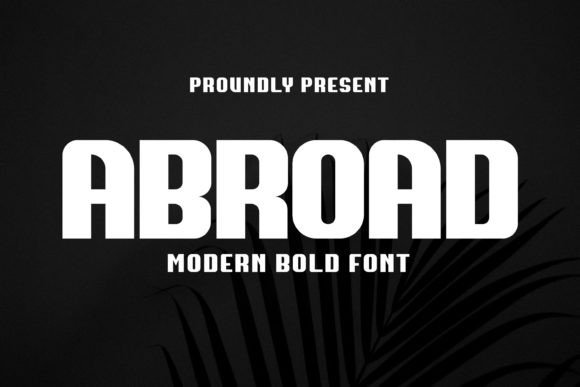
Introducing “Abroad Bold Font” – Your Gateway to Distinctive Typography!
In the realm of design, typography plays a pivotal role in conveying messages, evoking emotions, and capturing attention. For designers and creatives seeking to make a lasting impression, the choice of font is paramount. This is where Abroad Bold Font comes into play – a dynamic typeface meticulously crafted to elevate your designs to unprecedented heights. Whether you’re a seasoned designer or a budding creative, Abroad Bold Font is your ultimate tool for making a bold statement that demands attention.
The Essence of Abroad Bold Font
Abroad Bold Font is not just another addition to the vast universe of typefaces; it is a game-changer. Its design is rooted in the principles of clarity, versatility, and impact. Each letter is carefully crafted to exude a sense of confidence and professionalism, making it perfect for a wide range of applications – from branding and advertising to web design and personal projects.
Unleashing Creative Potential
What sets Abroad Bold Font apart is its unique blend of modernity and timelessness. It’s a font that feels at home in both digital and print media, adapting seamlessly to various contexts and layouts. This adaptability is a boon for designers who work across multiple platforms and mediums, as it allows for a consistent visual identity that’s easily recognizable.
Key Features of Abroad Bold Font
- Distinctive Character: Abroad Bold Font boasts a distinctive character that sets it apart from more generic typefaces. Its bold strokes and elegant curves make it both eye-catching and aesthetically pleasing.
- Versatility: Whether you’re designing a logo, a website, a brochure, or a social media post, Abroad Bold Font can be your go-to choice. Its versatility means it can be used in various contexts without losing its impact.
- Legibility: Despite its boldness, Abroad Bold Font maintains high legibility, ensuring that your message is conveyed clearly and effectively. This is particularly important in digital media, where readability can be a challenge.
- Easy to Pair: For designers who like to mix and match fonts, Abroad Bold Font is easy to pair with other typefaces. It works well with both serif and sans-serif fonts, offering flexibility in design.
Who Can Benefit from Abroad Bold Font?
Abroad Bold Font is a valuable asset for a wide range of professionals and creatives, including:
- Graphic Designers: Looking for a bold and impactful font to make their designs stand out.
- Web Designers: Needing a font that’s not only visually appealing but also legible on various devices.
- Marketers and Brand Strategists: Aiming to create a strong and memorable brand identity.
- Content Creators: Seeking to enhance the visual appeal of their content across different platforms.
- Crafters and DIY Enthusiasts: Who want to add a professional touch to their handmade products or personal projects.
How to Get the Most Out of Abroad Bold Font
To truly leverage the potential of Abroad Bold Font, consider the following tips:
- Experiment with Sizes: While the bold nature of the font makes it impactful, playing with different sizes can add depth and hierarchy to your design.
- Play with Colors: Don’t be afraid to experiment with different colors. The right color can enhance the font’s personality and suit the mood of your project.
- Mix and Match: Try pairing Abroad Bold Font with other fonts to create interesting contrasts and dynamic layouts.
- Consider Context: Always consider the context in which your design will be viewed. This will help you make informed decisions about font size, color, and placement.
| Author | ajiwaluyo88 |
Abroad Bold Font is more than just a typeface; it’s a design statement. It’s a tool that empowers designers and creatives to push the boundaries of typography and design. With its distinctive character, versatility, and emphasis on legibility, Abroad Bold Font is poised to become a favorite among those who see the power of typography in shaping perceptions and evoking emotions. Whether you’re crafting a brand identity, designing a website, or working on a personal project, Abroad Bold Font invites you to explore new possibilities in typography and make a bold statement that resonates.
Embark on a journey of typographic excellence with Abroad Bold Font. Elevate your designs, captivate your audience, and make your mark with a font that’s as bold as your creativity.